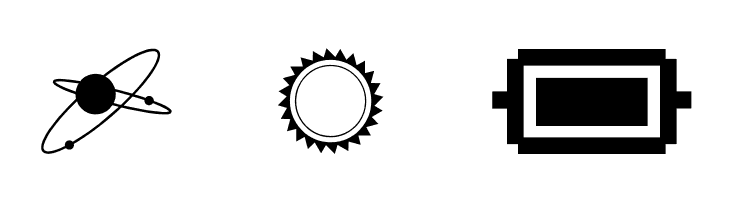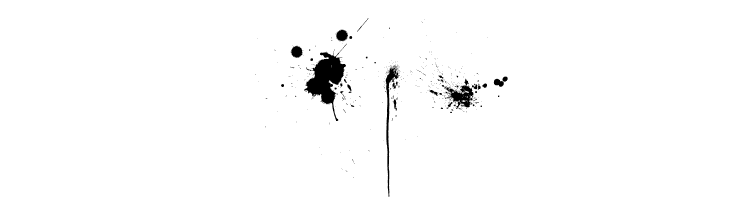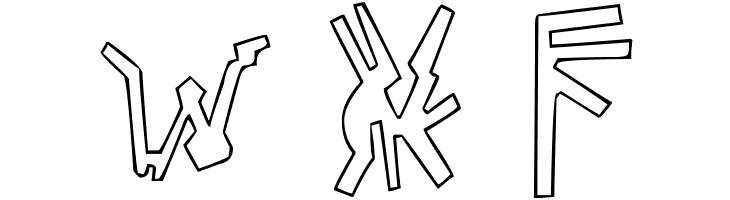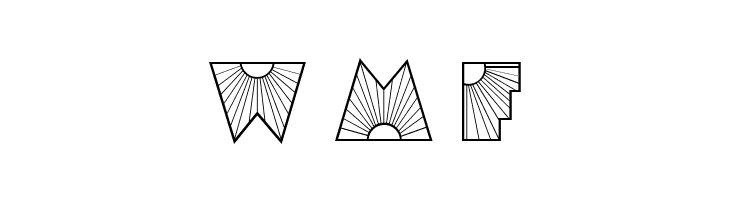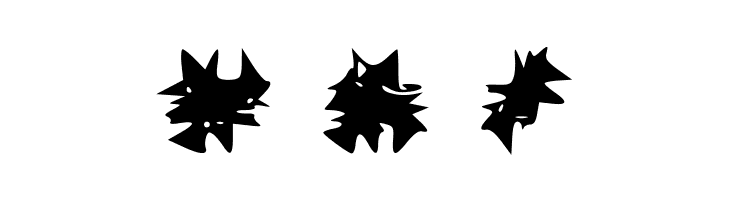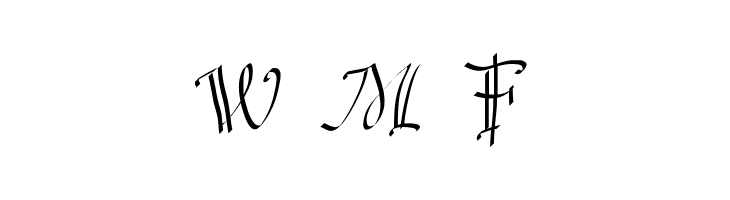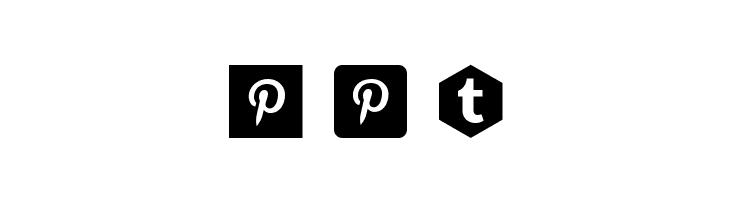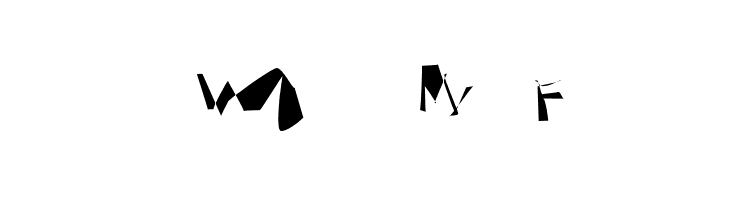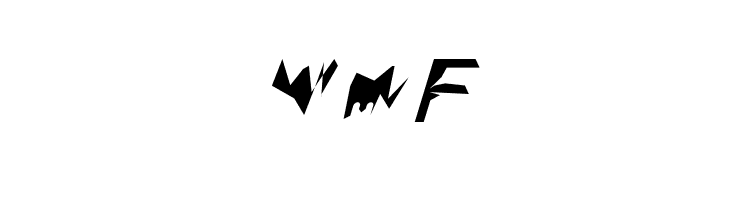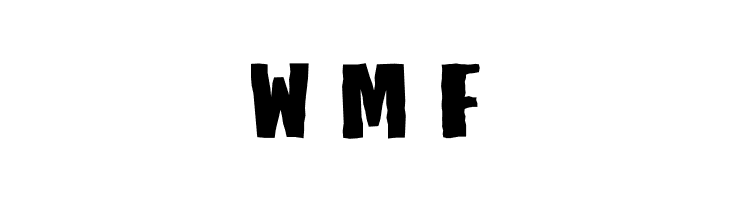
Whimsical geometric dingbat font with manga-style faces.
Abstract, spiky, and geometric symbol set with bold, high-contrast shapes.
Retro 1960s-inspired dingbat font with geometric and decorative motifs.
A playful decorative dingbat set with varied graphic elements and comic-style word art.
An abstract, graffiti-like font with ink splatter aesthetics.
A decorative, abstract font with bold, angular lines and tribal motifs.
A collection of decorative star and geometric shapes for creative design use.
A bold, distressed font with a punk-inspired, rebellious aesthetic.
A bold, abstract font with explosive, jagged shapes.
Bold, high-contrast geometric symbols with an optical art style.
A bold, graffiti-inspired font with playful, cartoonish elements.
A bold, playful font with jagged outlines and rounded characters.
A bold, jagged, and artistic font with a dynamic and chaotic style.
Outlined comic speech and thought balloon glyphs.
A jagged, thorny decorative font with an intense and chaotic style.
Bold, geometric social media icon set in black and white.
A bold, jagged font with a fiery, energetic design.
Hand-drawn comic-style speech and thought bubble outlines.
A bold, rugged font with a hand-crafted, rustic appearance.
A display font made up of diverse lightning bolt icons and symbols.
A whimsical, time-themed decorative font with playful clock and celestial motifs.
A decorative collection of star-themed symbols and icons.
A bold, jagged font with spiky, energetic characters.
A diverse set of outlined label and badge border shapes.
Hand-drawn comic speech and thought bubble designs.
A bold, comic-inspired display font full of energy and movement.
An ornate and decorative font with intricate, snowflake-like patterns.
A bold, spiky font with a dynamic and energetic appearance.